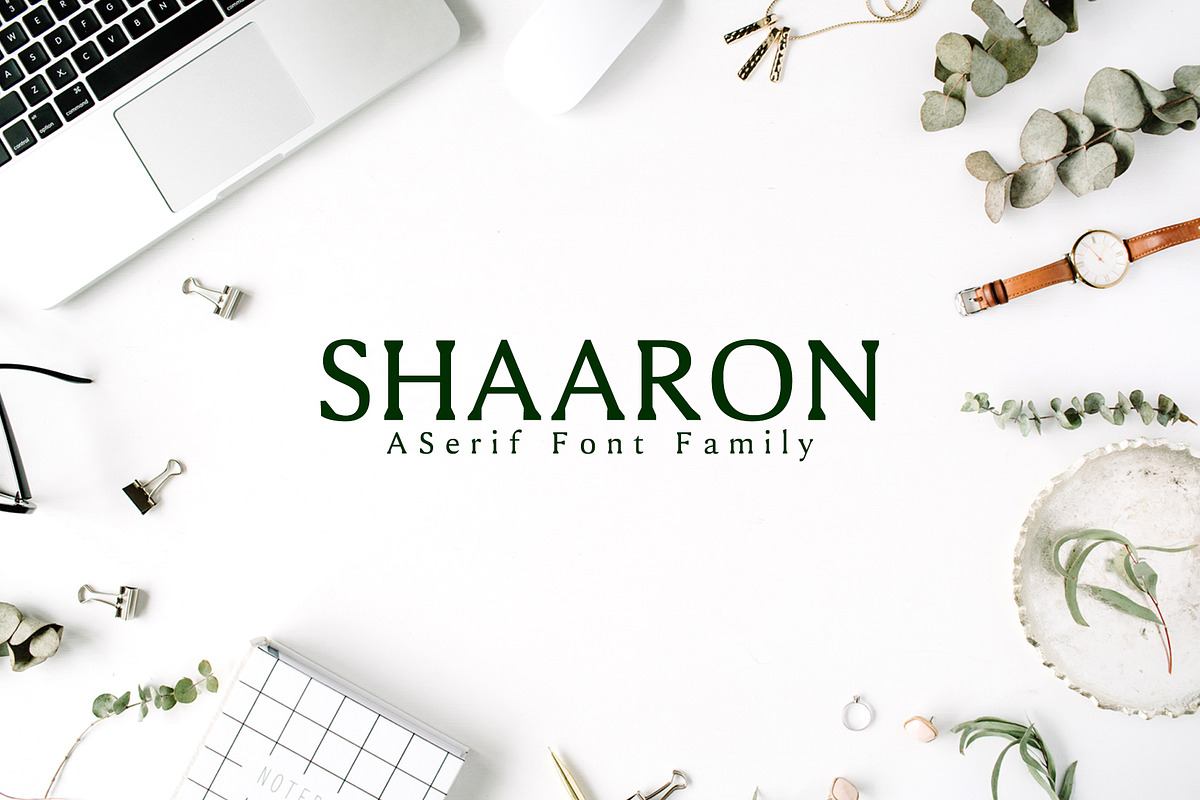
Shaaron A New Serif 2 Font Family Free Download is a refined and modern serif typeface duo that brings timeless elegance to contemporary design. With clean lines, stylish curves, and subtle contrast, this font family is ideal for editorial layouts, high-end branding, fashion lookbooks, and luxury packaging.
Shaaron A New Serif 2 Font Family Free Download offers both regular and italic styles, giving you flexibility and sophistication in one cohesive package. Whether you're designing a premium logo or crafting elegant headlines, this font family delivers a professional yet artistic touch. Download it today and elevate your typography with the graceful strength of Shaaron.